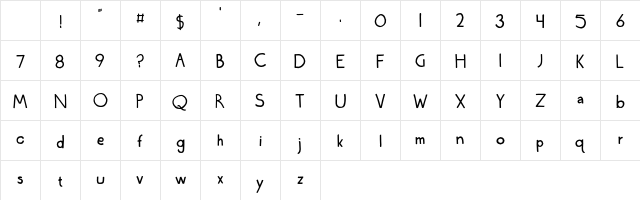
Complete Wednesday Lettering Practice Regular glyph index. Displaying only characters natively supported by Wednesday Lettering Practice Regular font.
Wednesday Lettering Practice is a composed and adaptable typeface that performs quietly and consistently across a wide range of design contexts.